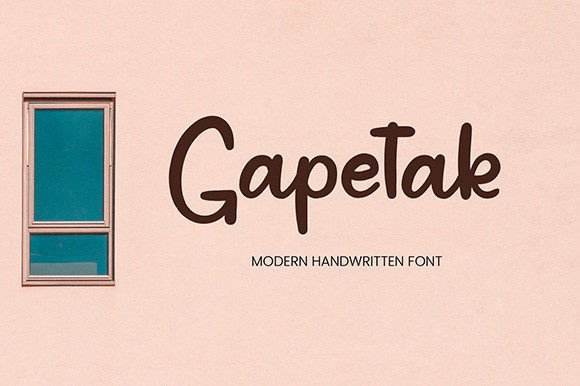
Introducing Gapetak Font, the epitome of elegance and style. Crafted with utmost precision by the talented team at chatype studio, this stunning script font is poised to revolutionize the way you design. Whether you're creating captivating quotes, mesmerizing logos, or eye-catching blog headers, Gapetak Font is your ultimate go-to choice.
Immerse yourself in the world of sophistication and add a touch of finesse to your projects with Gapetak Font. With its captivating curves and graceful strokes, this font is guaranteed to leave a lasting impression. The versatility of Gapetak Font knows no bounds, making it ideal for a wide range of applications.
Are you planning a dreamy wedding? Look no further, as Gapetak Font is tailor-made for your special day. Its enchanting charm and romantic aura will elevate your wedding labels to new heights. Let your invitations exude elegance and grace, capturing the essence of your love story in every stroke.
But Gapetak Font doesn't stop there. Embrace the world of fashion and clothing with this remarkable font. Create stunning posters and ribbons that effortlessly captivate your audience. Leave a lasting impression with blog headers that speak volumes about your unique style and creativity.
Express your thoughts with eloquence through the Gapetak Font. Its distinct personality adds flair to your letters and stationery, making every word a masterpiece. Leave a mark of sophistication on your personal and professional correspondence.
With Gapetak Font, the possibilities are endless. Let your creativity run wild as you explore its endless potential. Be it branding, packaging, or social media graphics, this font is your secret weapon to stand out in a crowded digital landscape.